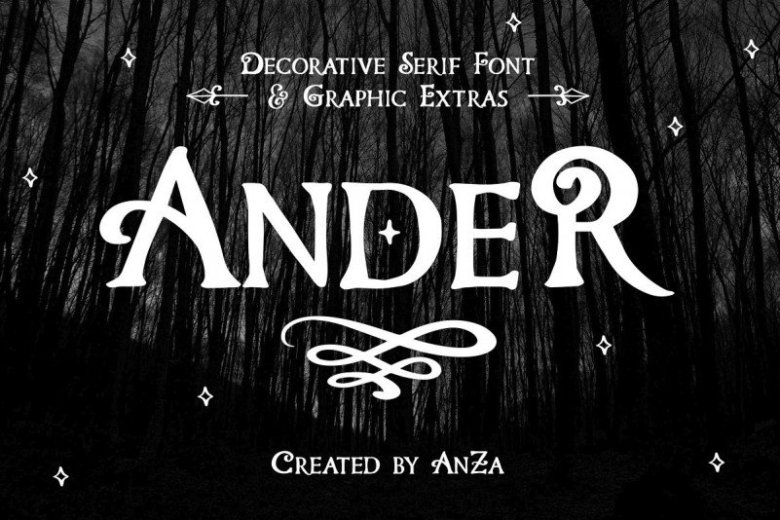
Ander Display Font Famly
Ander Display Font – A vintage font containing upper & lowercase characters, numerals, punctuation & symbols. Although it’s primarily meant to be used as a display font, it also has a set of lowercase characters with ligatures and alternates that make it look unique and super customizable – turn ligatures/on or off.
Ander Display Font will be perfect for logo, packaging, greeting cards, presentations, headlines, lettering, posters, branding, quotes, titles, magazines headings, web layouts, art quote, typography, advertising, invitations, packaging design, books, book title, and nearly any creative design.